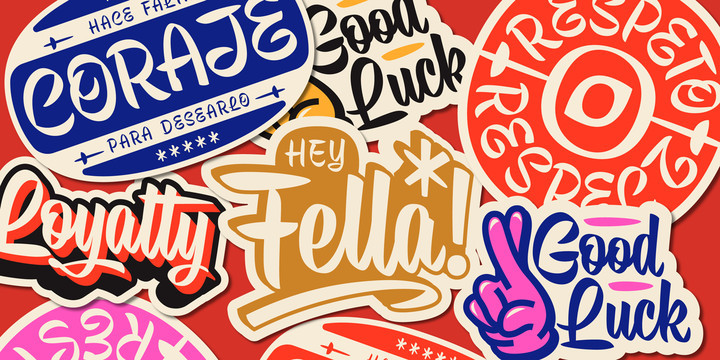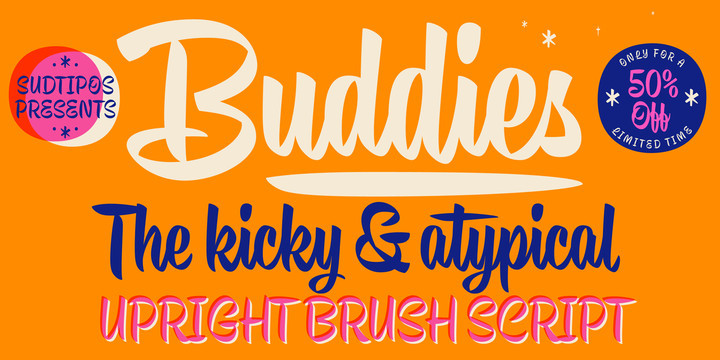
Buddies Font
Buddies, designed by Guille Vizzari, is a script font that was initially born as a piece of lettering.
It is the result of an experiment between brush pen and pencil, and in this way, Buddies takes the imprint of the brush, the freshness of sign painting, and some (or a lot) of quirks by the author.